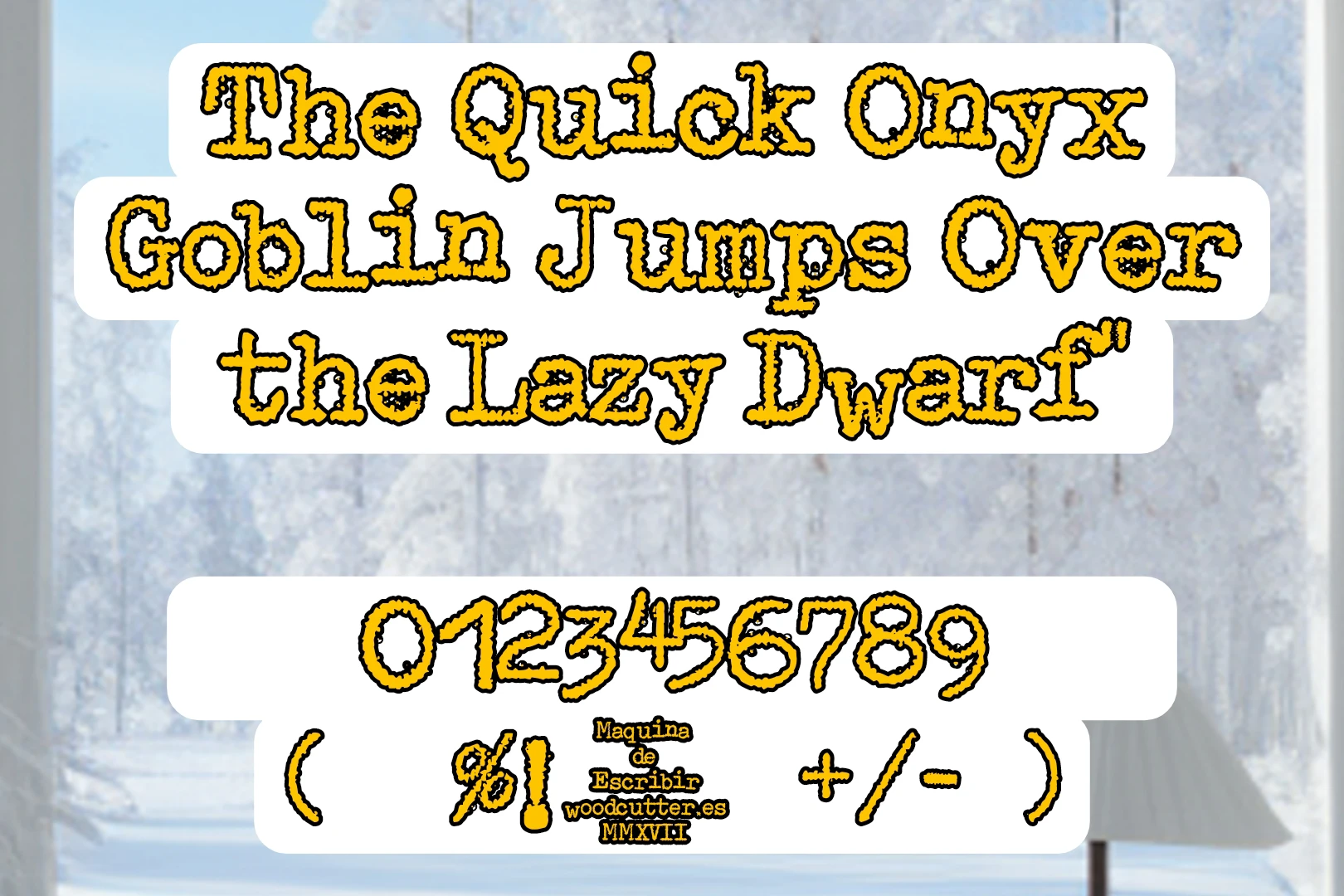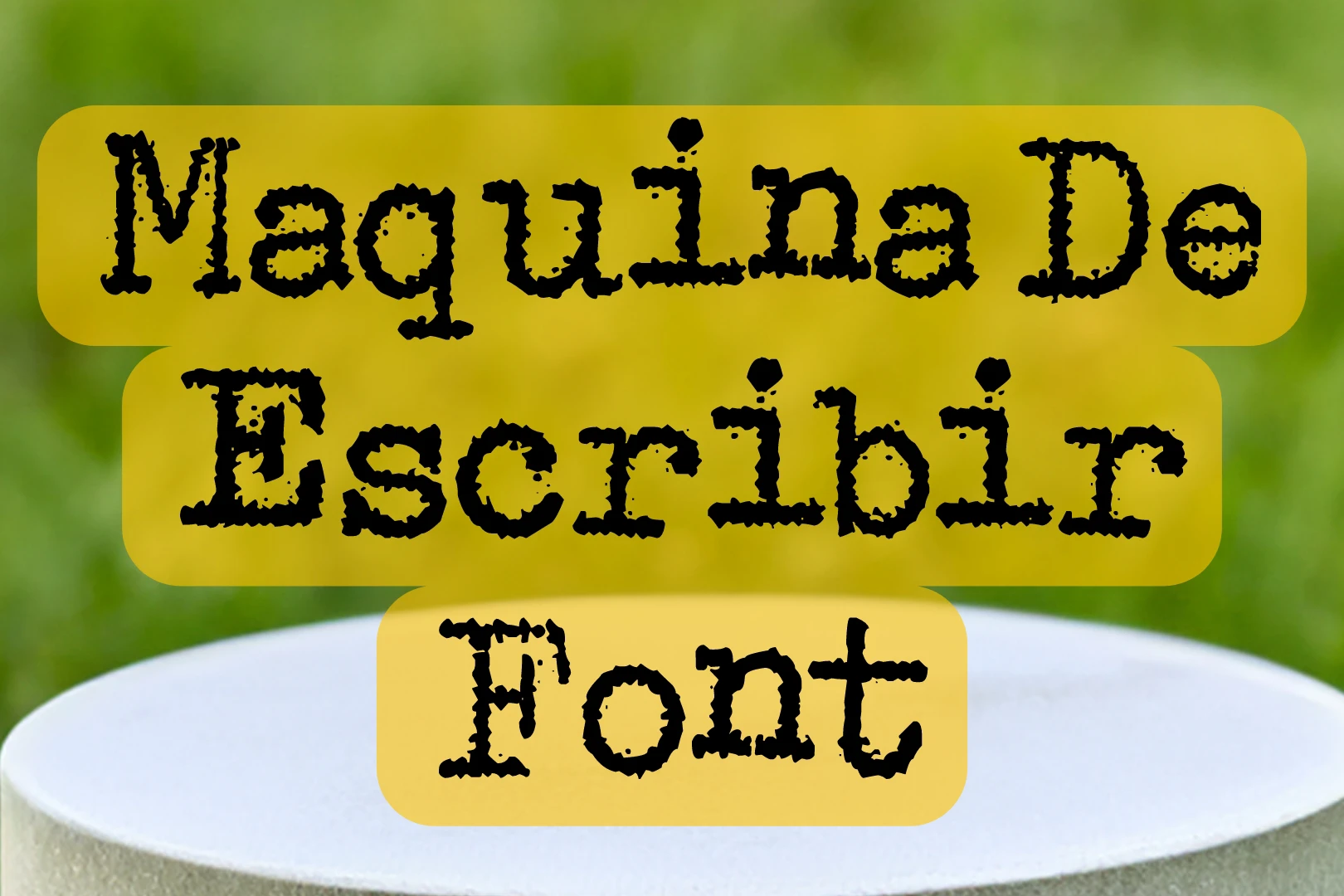
Maquina De Escribir Font was designed by a famous typographic designer Woodcutter and stands out as an extraordinary typewriting marvel. This fancy font boasts a collection of exceptional glyphs and characters, delivering a unique typewriting texture that adds a distinctive touch to various design projects. Whether it’s for logo creation, website elements, or printing purposes, Maquina De Escribir brings a nostalgic yet contemporary flair to the world of typography.
Maquina De Escribir Regular Font, resembling a typewriting texture in a distinctive style, offers a versatile and visually engaging option for designers. Its exceptional glyphs make it suitable for a range of applications, allowing for creative expression in logo design or enhancing the visual appeal of website elements. The font’s unique typewriting aesthetic adds character and charm to any project, making it a valuable asset in the designer’s toolkit.
The versatility of Maquina De Escribir isn’t limited to digital spaces; it seamlessly transitions to physical prints, making it an ideal choice for printing purposes. Whether used for business cards, posters, or other print materials, the font maintains its clarity and visual impact, ensuring a consistent and professional appearance.
Usage
Maquina De Escribir texture offers a captivating typewriting aesthetic that can elevate various design projects. From logo creation to website elements, its unique style adds character and nostalgia. Designers can leverage this font to infuse a touch of vintage charm into their work, creating a distinct visual identity that resonates with authenticity.
This fancy font isn’t confined to digital realms alone; it proves its mettle in the realm of physical prints. Business cards, posters, and other print materials benefit from the clarity and visual appeal of Maquina De Escribir, ensuring that the typewriting marvel retains its impact across different mediums.
Font Family
The “Maquina De Escribir” font family typically includes variations like:
- Maquina De Escribir Regular
- Maquina De Escribir Bold
- Maquina De Escribir Italic
What is Maquina De Escribir Font?
This stunning texture is a typewriting-inspired font designed by Woodcutter, known for its exceptional glyphs. You can utilize it for all your various types of design, and projects.
What applications is Maquina De Escribir texture suitable for?
The font is versatile and can be used for logo creation, website elements, and printing purposes.
Is Maquina De Escribir typeface suitable for business materials like business cards?
Absolutely. The font’s clarity and visual appeal make it suitable for various print materials, including business cards.
Does Maquina De Escribir Font work well in both digital and print formats?
Yes, the font seamlessly transitions from digital to print, maintaining its clarity and impact across different mediums.